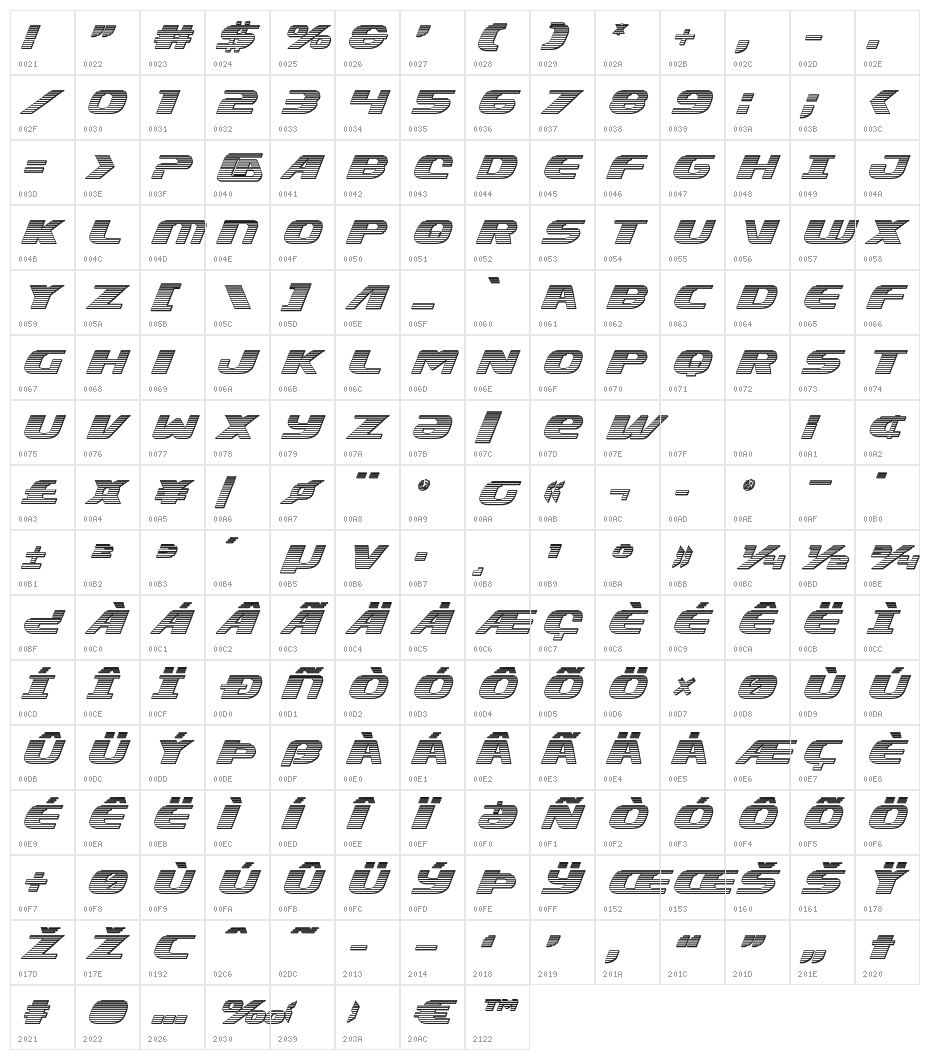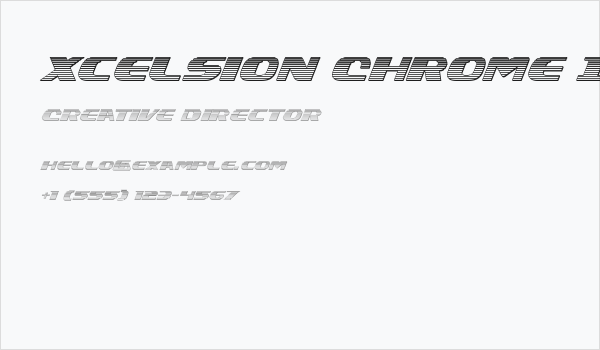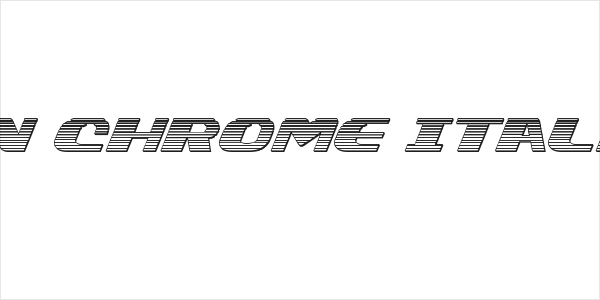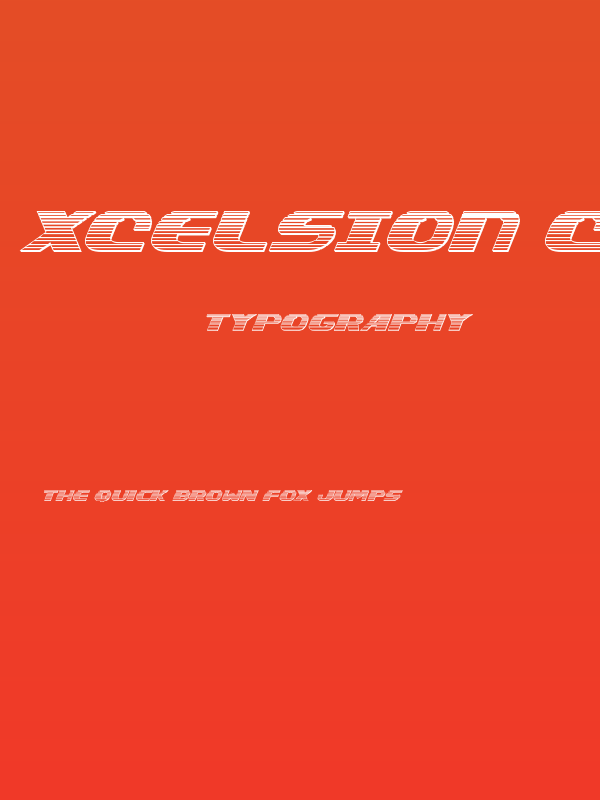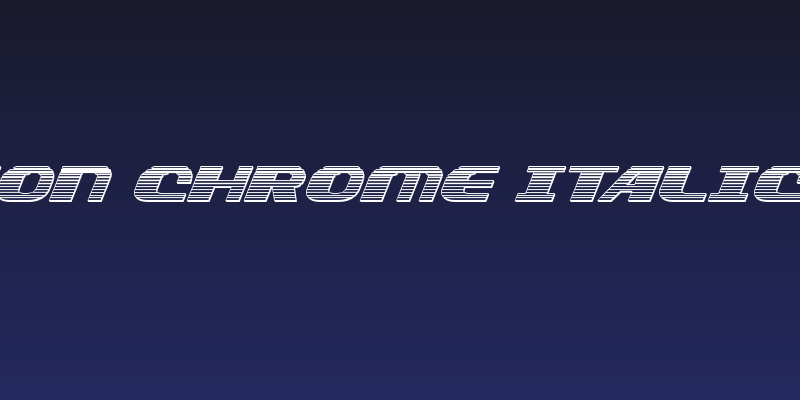
Xcelsion Chrome Italic Italic Font
Xcelsion Chrome Italic Italic Description
This font features a bold, italicized style with a futuristic and dynamic appearance. The characters are constructed with a series of parallel lines, creating a striped effect that gives a sense of movement and energy. The uppercase and lowercase letters maintain a consistent slant, enhancing the italicized look. The numbers and special characters follow the same design principles, ensuring uniformity across the font. The overall design is modern and eye-catching, suitable for projects that require a strong visual impact.
| Proposed Projects | Ideal for sci-fi themed designs, tech branding, video game titles, and dynamic posters. |